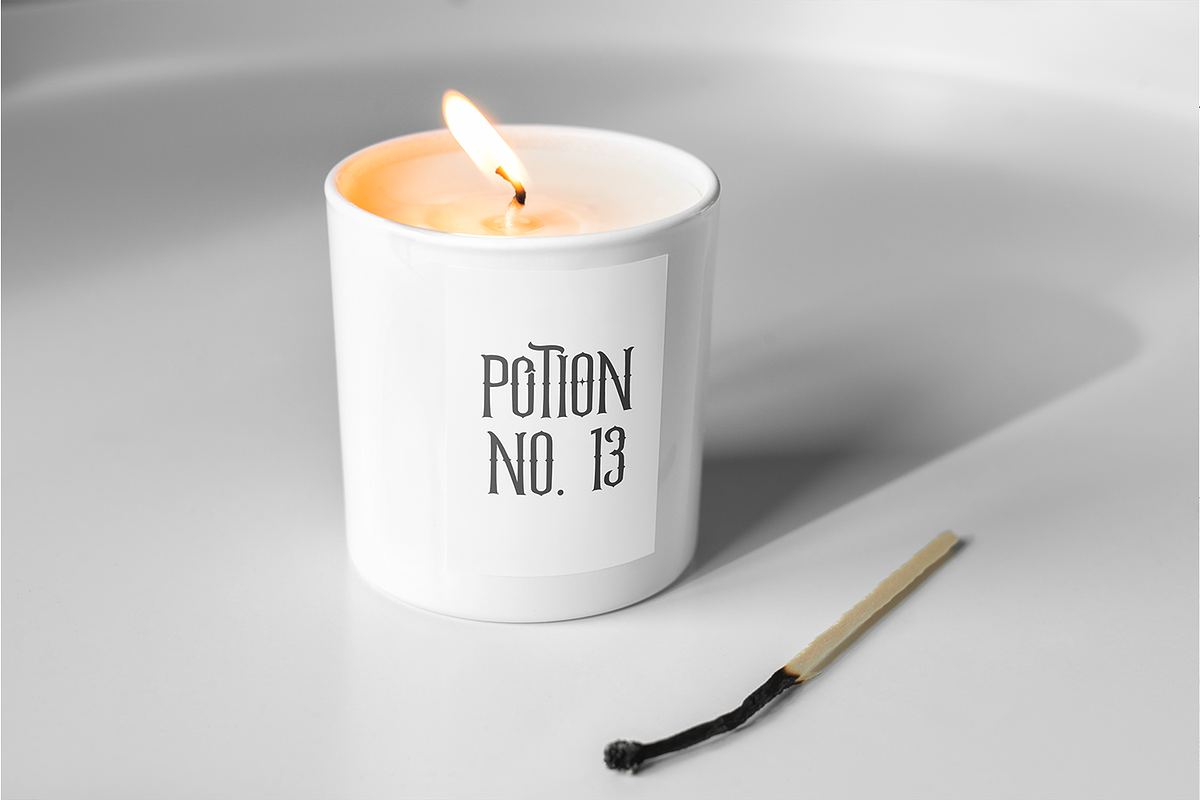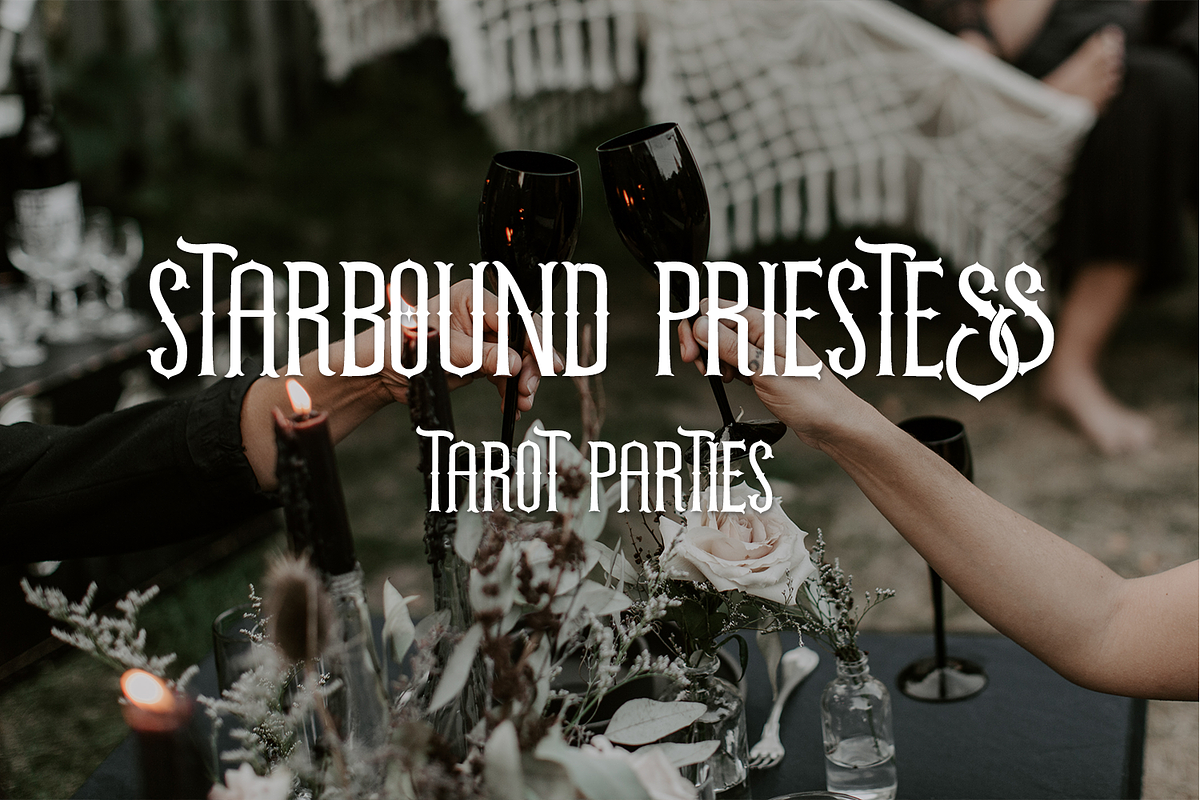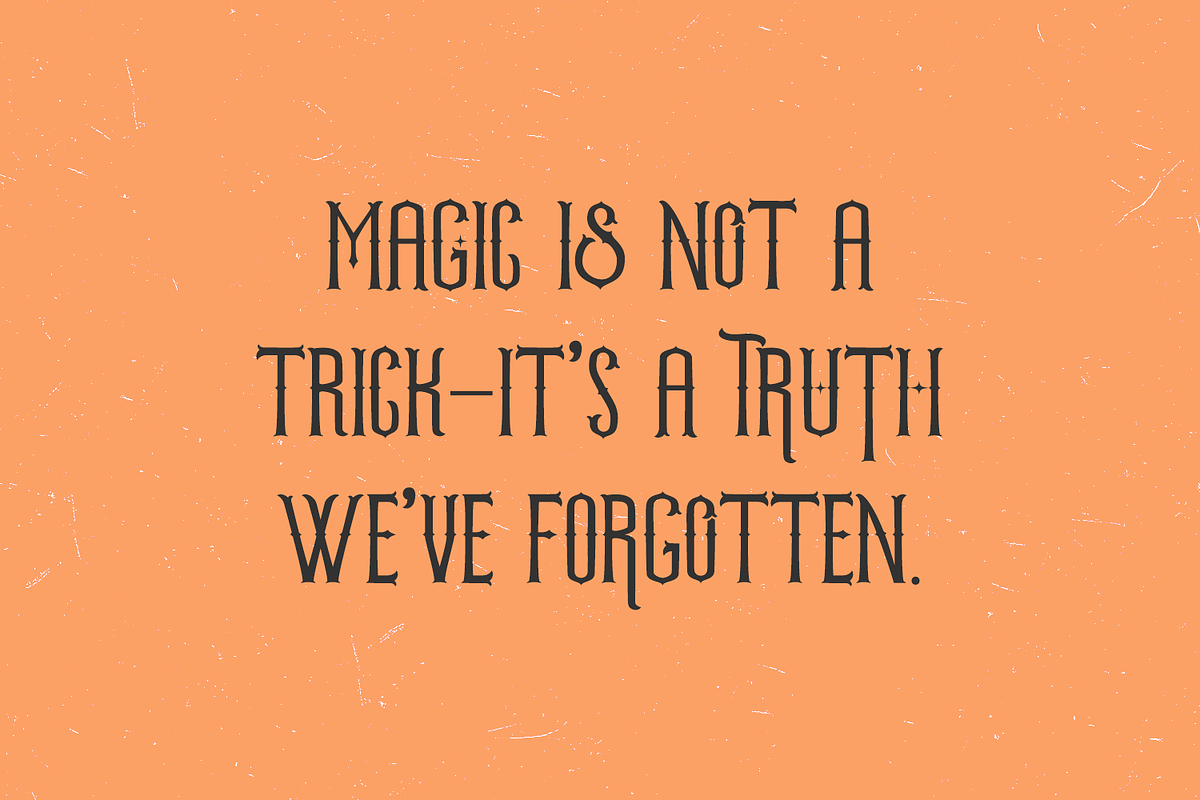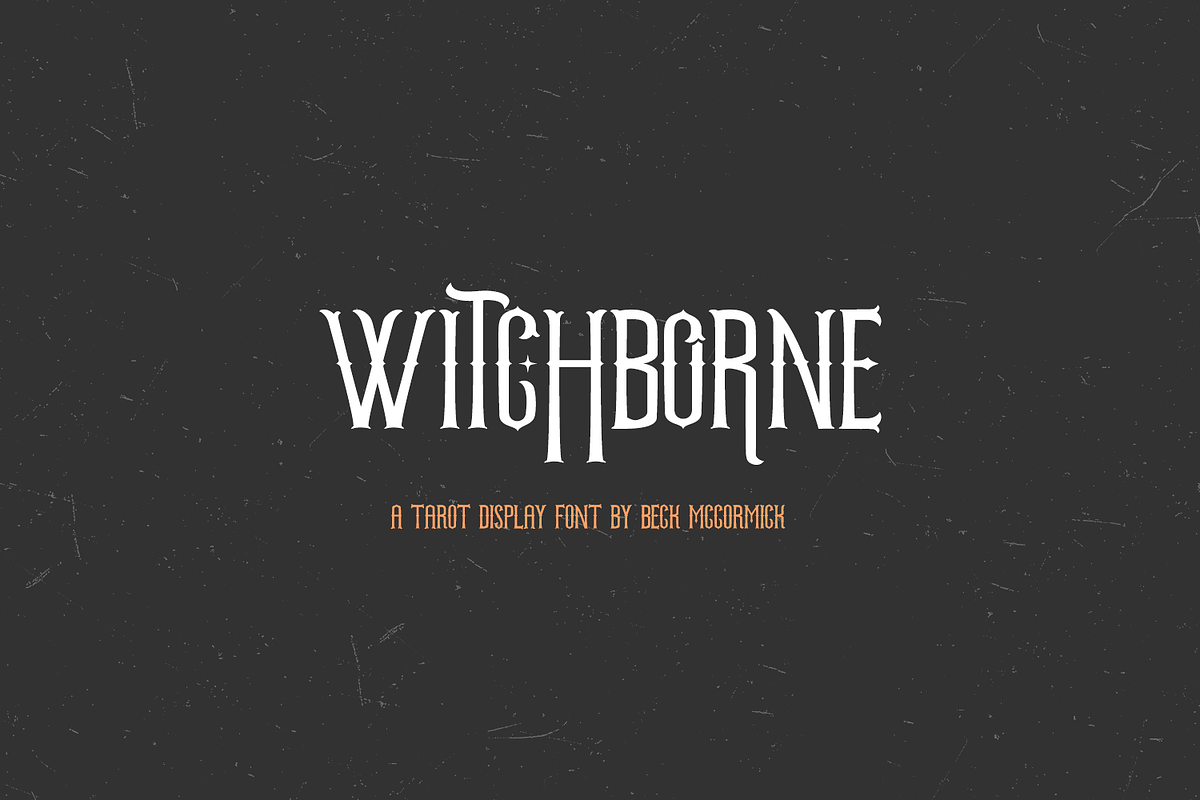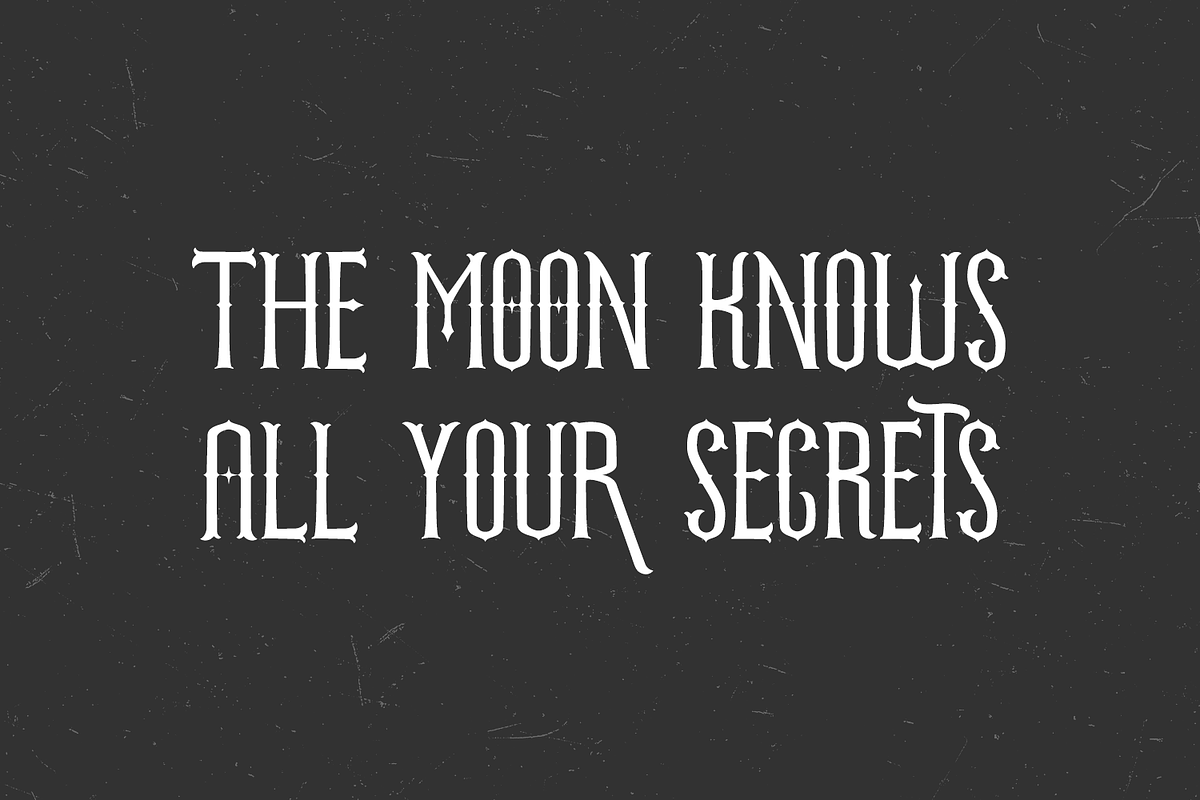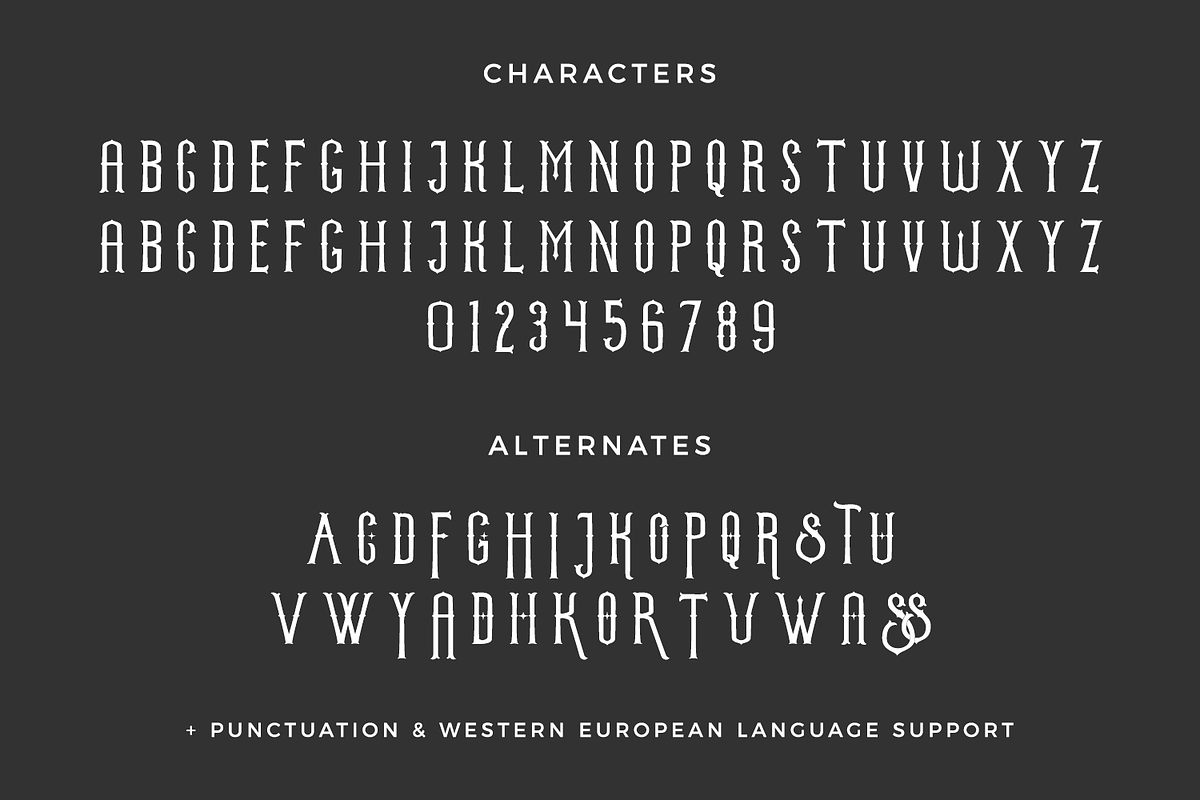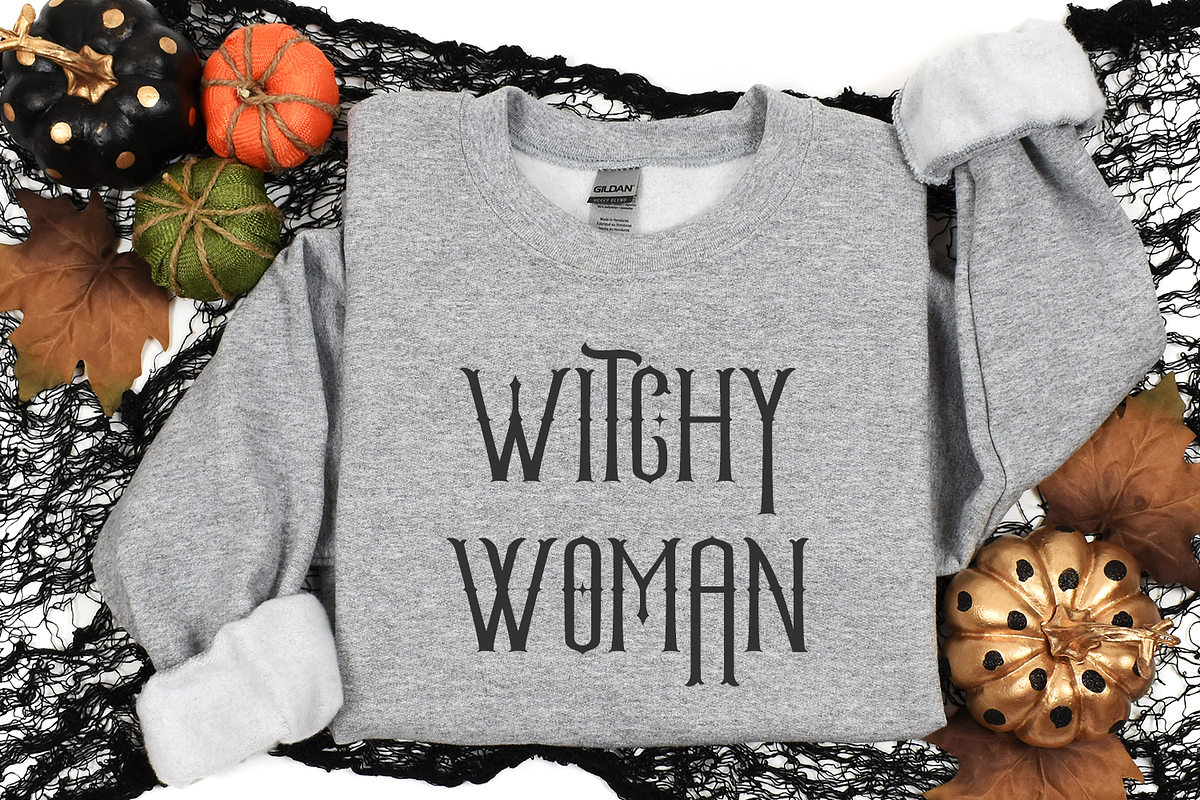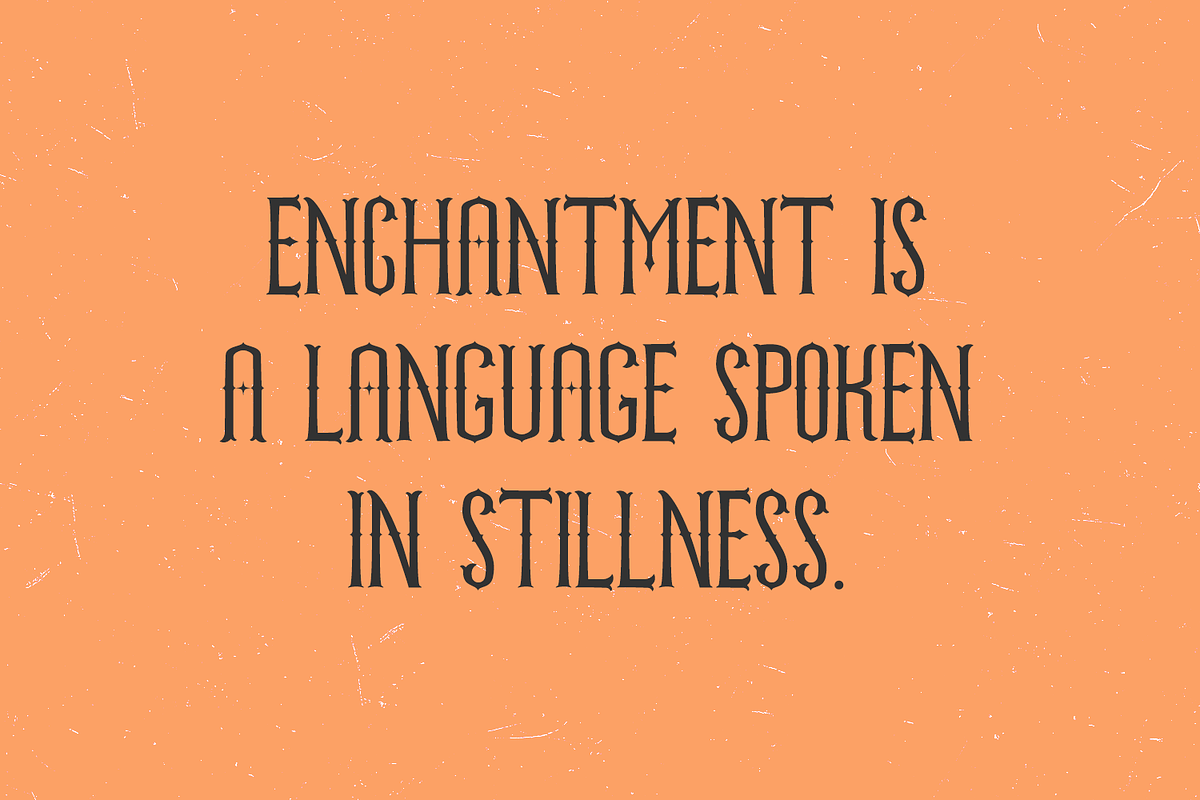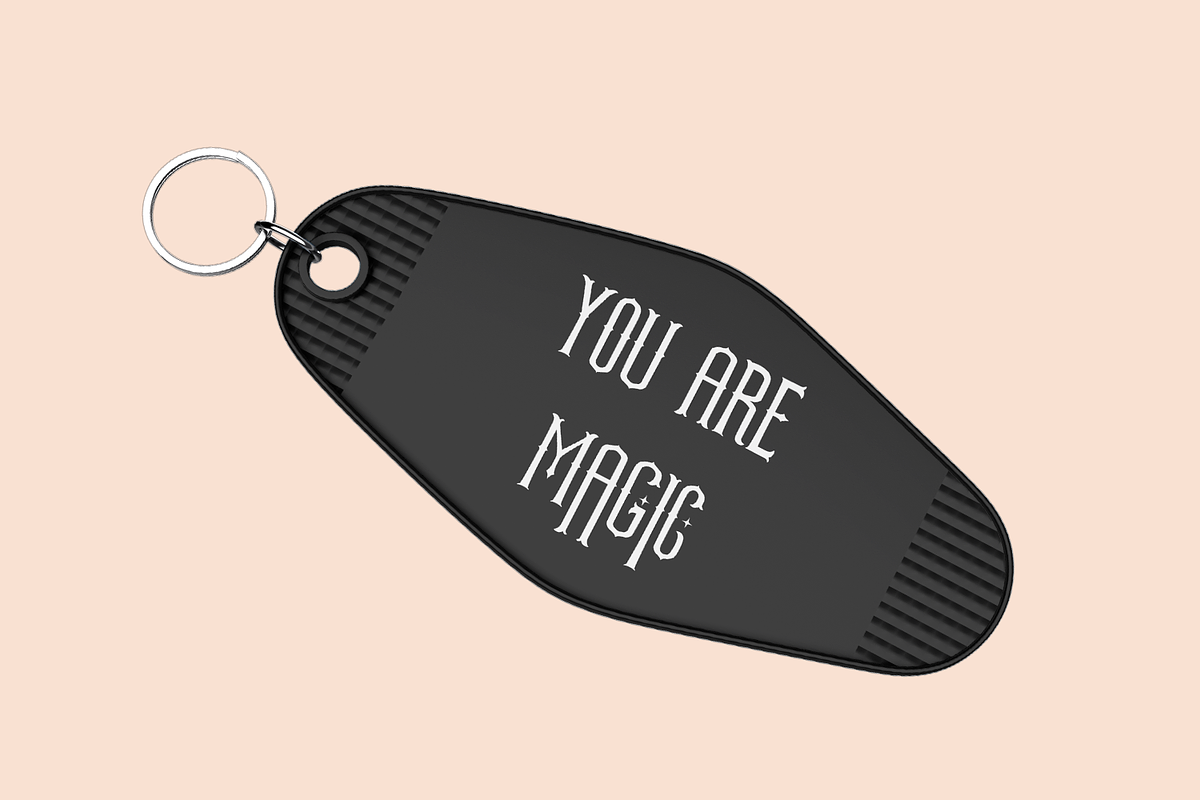
Witchborne Serif - A Tarot Card Font
Introducing Witchborne, a tarot-themed display font. Witchborne is a fantastic fit for your tarot designs, as well as anything magic, witch, or celestial. This font is well-suited for Halloween crafting projects with your Cricut or Silhouette machine, and can be used for things like shirts, signs, labels, marketing materials, social media, SVG designs, greeting cards & other print items, and even spooky logos & branding. Witchborne includes some alternate characters featuring stars, as well as flourished characters.
Witchborne includes:
- full upper + lowercase characters (Witchborne is all-caps, so uppercase characters are programmed into lowercase spots for ease of use.)
- numbers + punctuation
- 29 alternates & 1 ligature